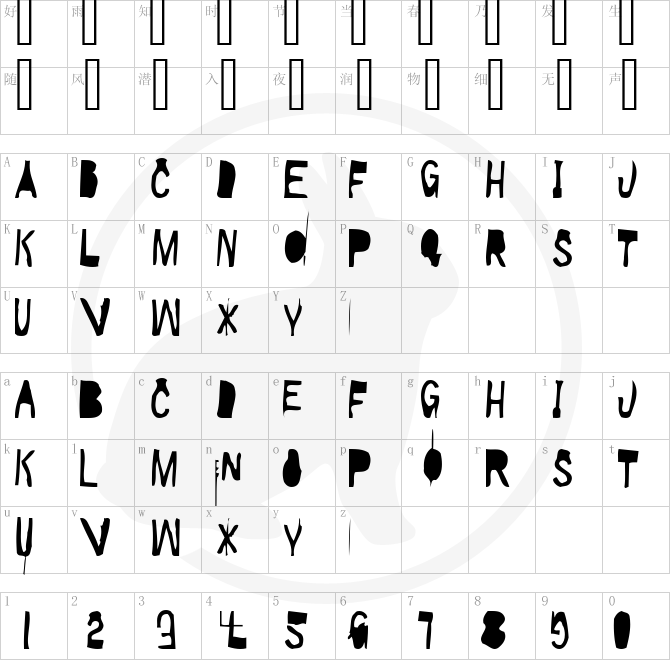
- Font Name:WalkieTalkie
WalkieTalkie.ttf is a very beautiful artistic font, WalkieTalkie.ttf is widely used in the design and printing of various books and pictures,WalkieTalkie.ttf has a strong visual impact,WalkieTalkie.ttf is a commonly used font in newspapers, magazines and books, and is used in posters, e-commerce Poster design, store design, logo design, font design and other fields.WalkieTalkie.